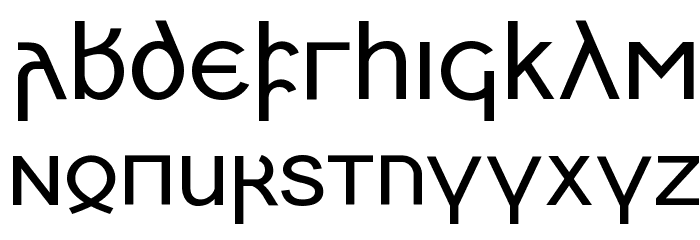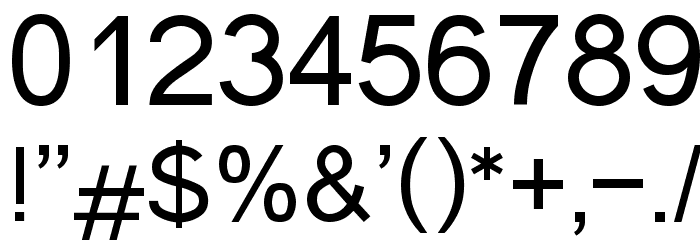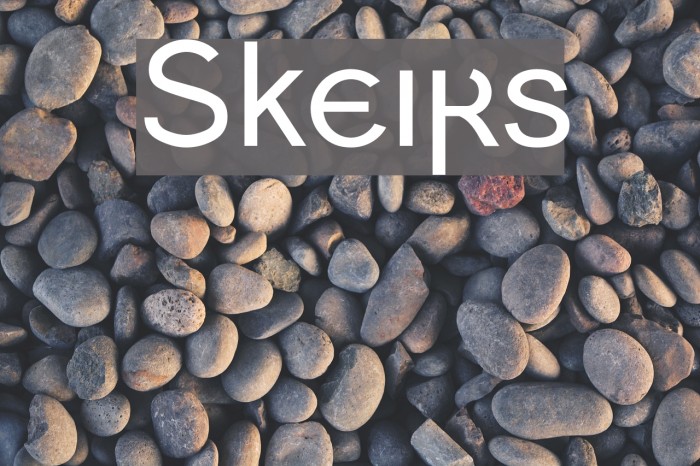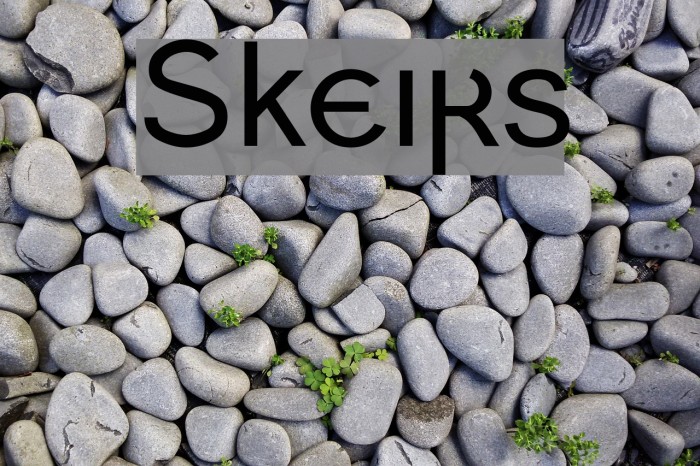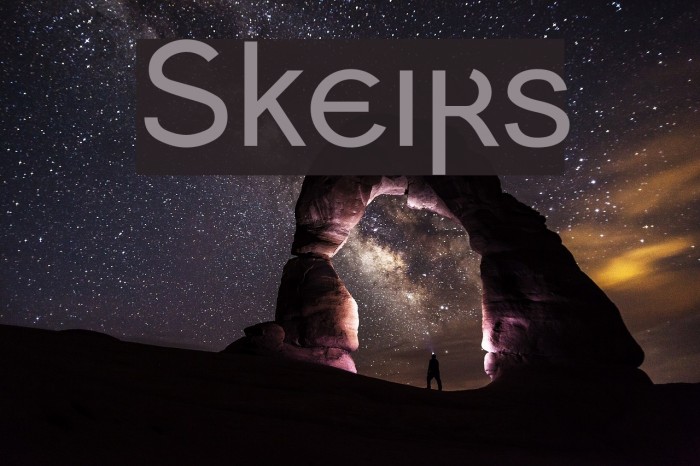
Skeirs Font
This font features a unique and modern design with geometric influences, characterized by its sharp angles and clean lines. The uppercase letters exhibit a distinct angularity, creating a futuristic and technical appearance. The lowercase letters maintain a consistent style, complementing the uppercase with a similar geometric structure. Numbers are clear and legible, following the same design principles. Special characters are well-integrated, ensuring versatility in various contexts. The overall aesthetic is sleek and contemporary, making it suitable for projects that require a forward-thinking and innovative look.
A modern, geometric font with sharp angles and clean lines.
- Proposed Projects: Ideal for tech branding, modern advertising, futuristic posters, and digital interfaces.
- Use Case: Headlines, Logos, Digital interfaces